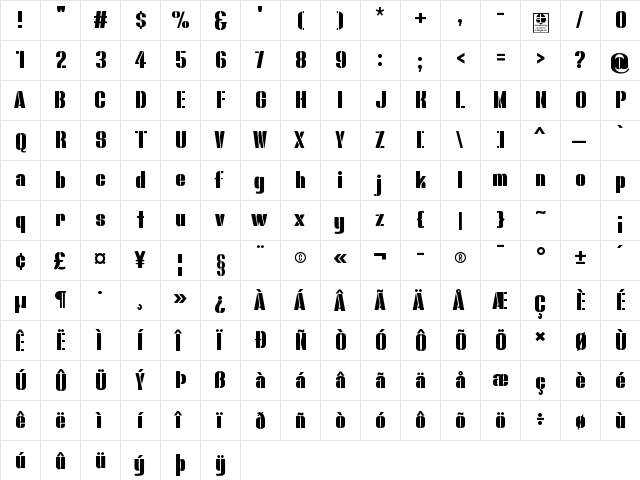
Bluefish STENCIL DEMO Regular
Design Context for Bluefish STENCIL DEMO Typeface
Bluefish STENCIL DEMO has the rough pragmatism of spray-painted stencil signage, adding a raw, street-level authenticity to designs.
Ideal for industrial branding, streetwear, military-adjacent aesthetics, and urban signage projects.
Pro Tip: Pair Bluefish STENCIL DEMO with raw, utilitarian design elements — exposed concrete textures, flat colour, and minimal ornamentation suit it well.